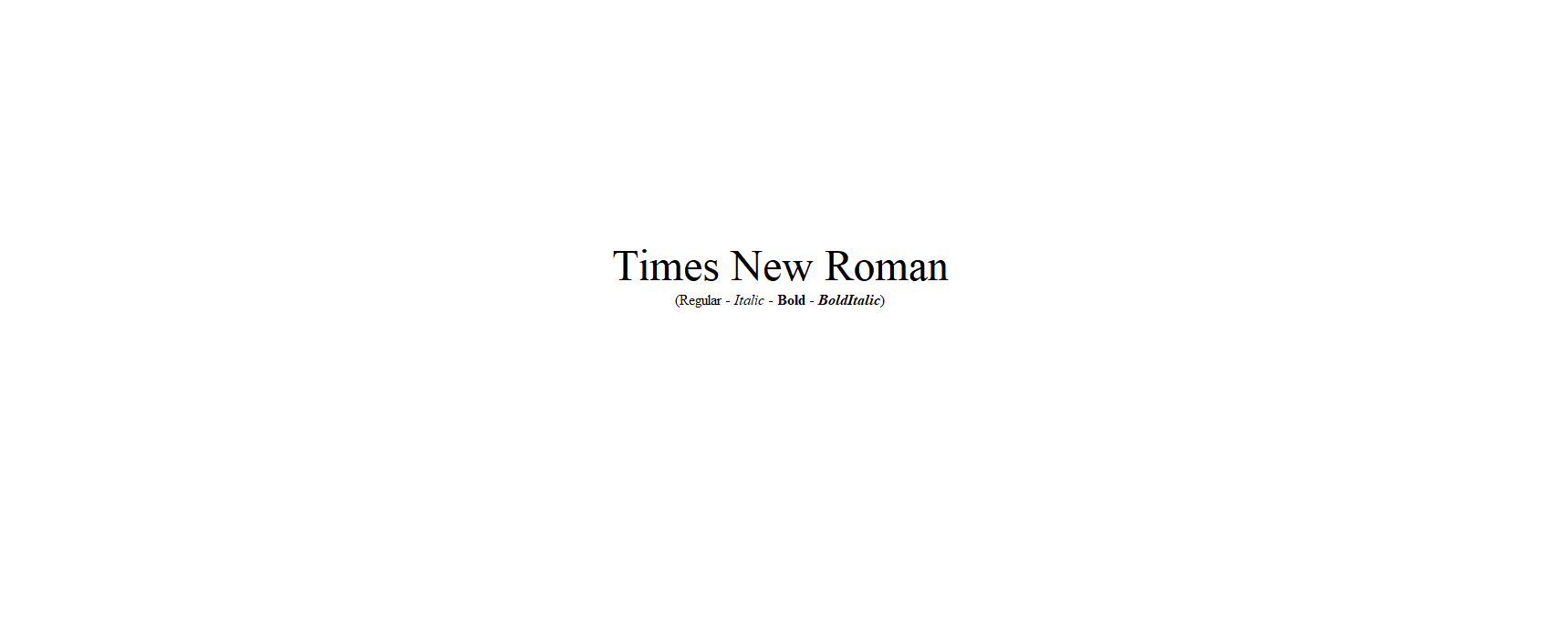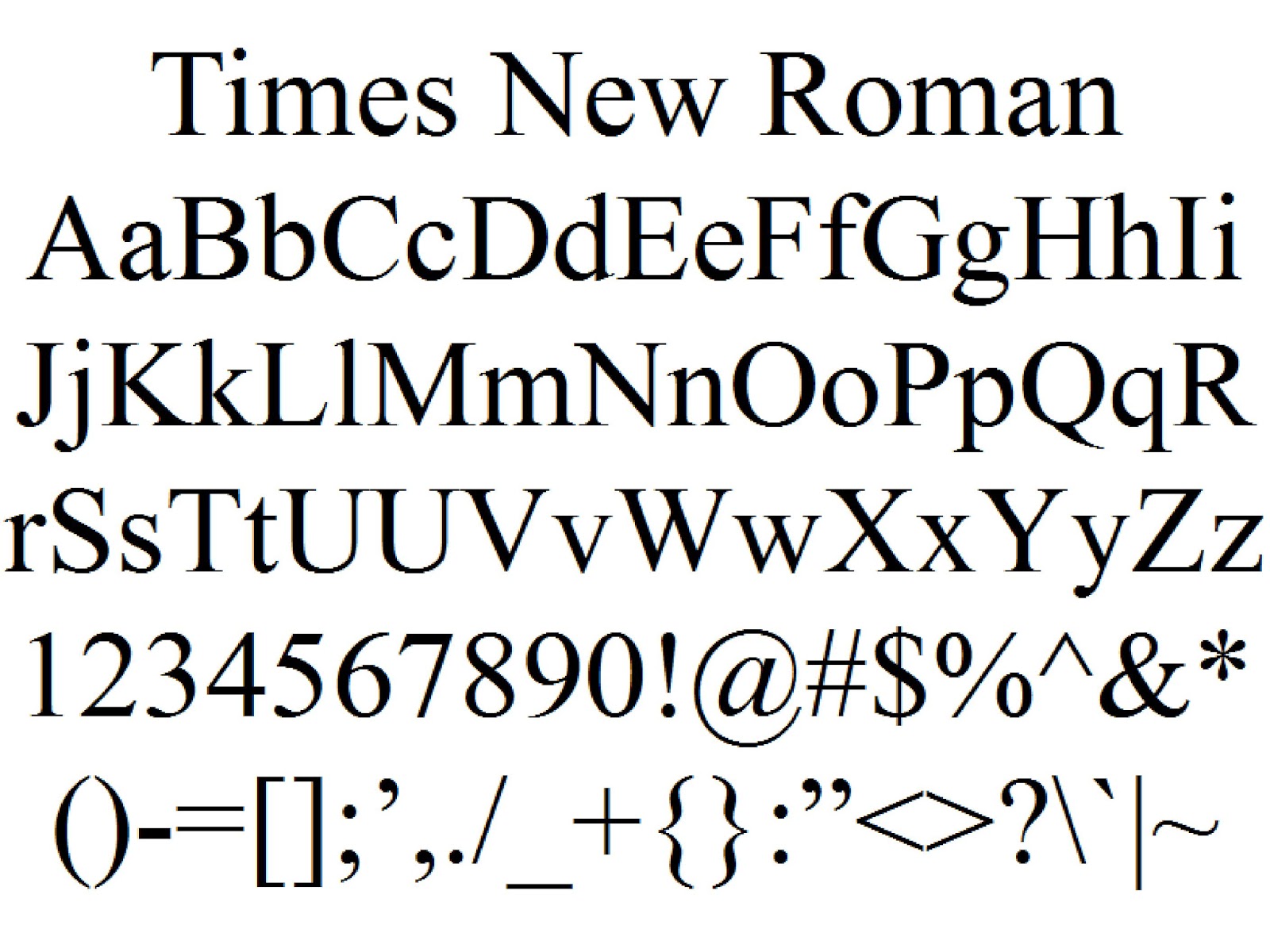
Times New Roman Font History - The times new roman appeared for the first time on october 3rd 1932 in the times. The case that parker makes about the real origins of times new roman stands on.
The times new roman appeared for the first time on october 3rd 1932 in the times. The case that parker makes about the real origins of times new roman stands on.
The case that parker makes about the real origins of times new roman stands on. The times new roman appeared for the first time on october 3rd 1932 in the times.
The Times New Roman Appeared For The First Time On October 3Rd 1932 In The Times.
The case that parker makes about the real origins of times new roman stands on.